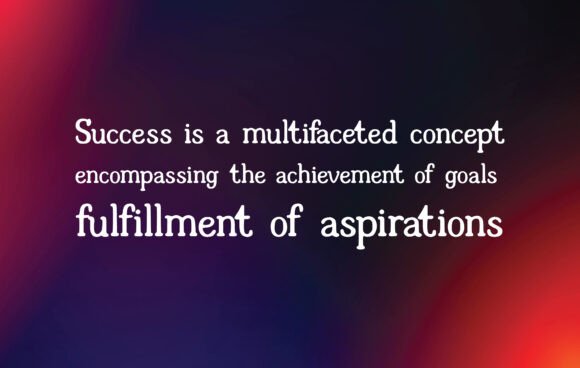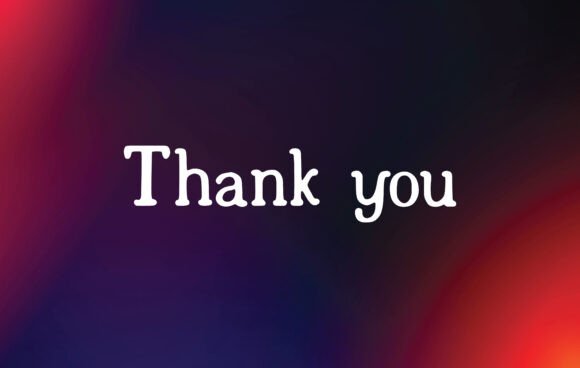
Introduction to Jace Font
Have you ever been in the midst of a creative project, pouring your heart and soul into a design, only to feel like something is missing? You’ve got the perfect idea, but the font just isn’t quite right. This is where Jace Font comes in – a stunning, high-quality handwritten font that can elevate your designs to new heights.
As a designer, you know how crucial the right font can be in making your creative vision come to life. With Jace Font, you’ll have access to a versatile and beautiful design resource that’s perfect for creating eye-catching logos, branding, and quotes. Whether you’re working on a personal project or a client’s design, this font is sure to impress.
Key Features of Jace Font
- High-quality, professional font design suitable for various creative projects
- Unique, modern design with a clean and elegant aesthetic, perfect for various design applications
Honest Review: Jace Font
As a designer, I’m always on the lookout for high-quality design resources to elevate my creative projects. Jace Font is a font that caught my attention, and I’m excited to share my honest review with you.
What works well about Jace Font is its versatility and modern aesthetic. ✨ It’s perfect for a wide range of projects, from logos to typography-heavy designs. The font is also available for free download, which is a huge plus for designers on a budget.
One of the standout features of Jace Font is its transparent background, making it easy to use as a standalone design element or combine with other fonts. ✨ The font also comes in various weights and styles, giving designers plenty of options to choose from.
However, I did encounter some limitations while using Jace Font. ⚠️ The font may not be suitable for projects that require a more classic or traditional look. Additionally, the font’s versatility can also make it difficult to stand out in a crowded design space.
Overall, I’m impressed with Jace Font and would recommend it to designers looking for a modern and versatile font. With its high-quality design and transparent background, it’s a great addition to any design resource library.
- Perfect for modern and typography-heavy designs
- Transparent background for easy use
- Versatile and suitable for a wide range of projects
Jace Font
Tips for Getting the Most Out of Jace Font
Use the Jace Font with a transparent background to create a seamless design. Experiment with different font sizes and styles to add visual interest to your project. You can also use the Jace Font in combination with other design elements to create a unique and creative look.
Common Use Cases for Jace Font
The Jace Font is perfect for creating invitations, posters, and social media graphics. It’s also great for use in branding and logo design, where a high-quality and unique font is essential. With the Jace Font, you can create a professional-looking design that stands out from the crowd.